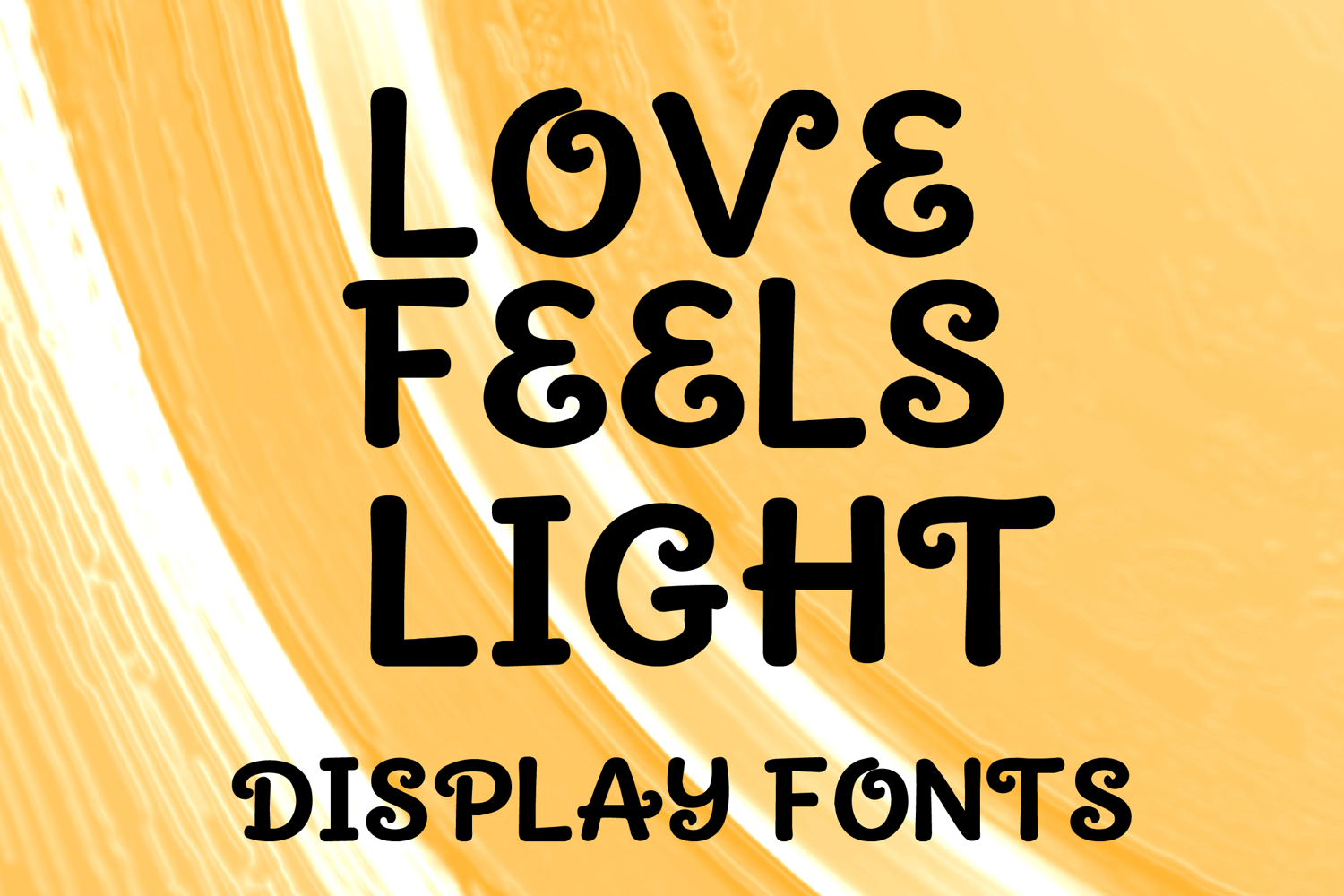
LOVE FEELS LIGHT
LOVE FEELS LIGHT is a whimsical decorative display font with a playful handcrafted style and sweet retro charm. Its uppercase letterforms feature smooth rounded strokes, cheerful spiral curls, and soft organic details that create a warm, joyful, and eye-catching look. Designed with uppercase letters A–Z and numbers 0–9, LOVE FEELS LIGHT is perfect for branding, posters, packaging, invitations, quotes, social media graphics, and creative projects that need a heartfelt and memorable statement.
LOVE FEELS LIGHT